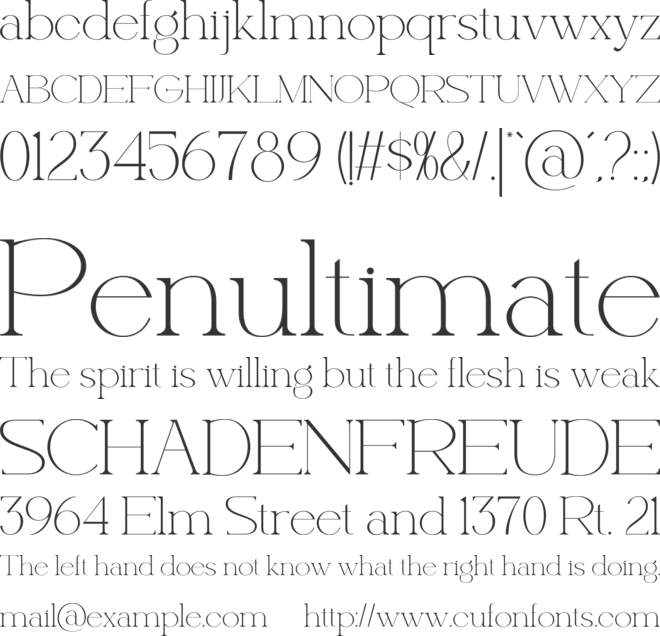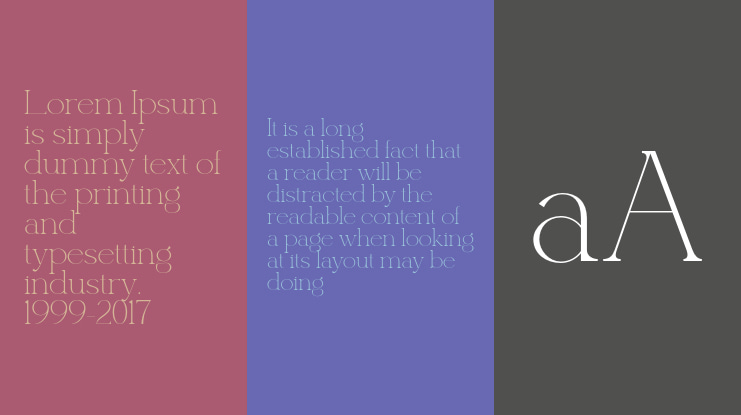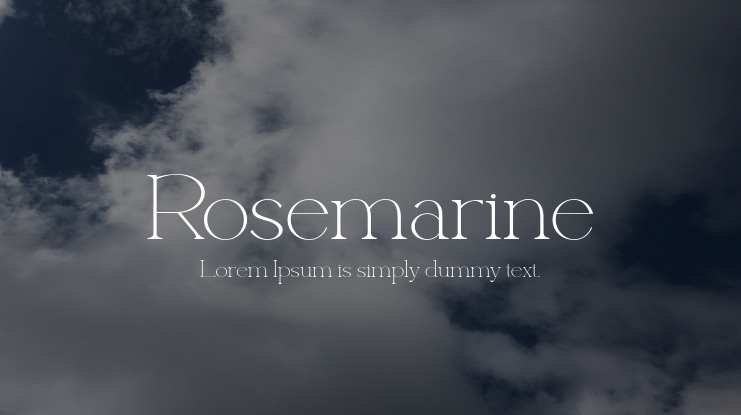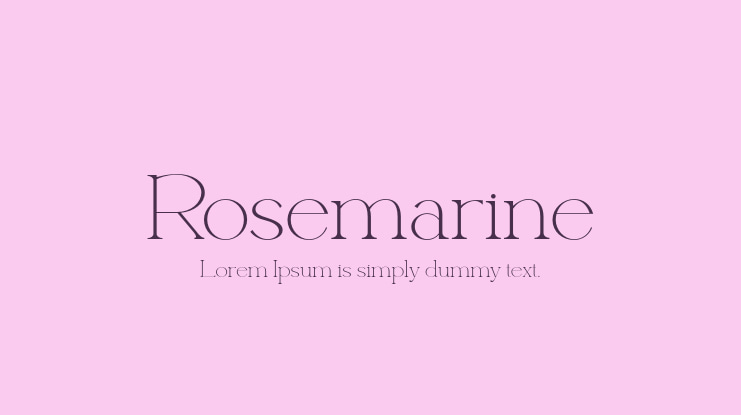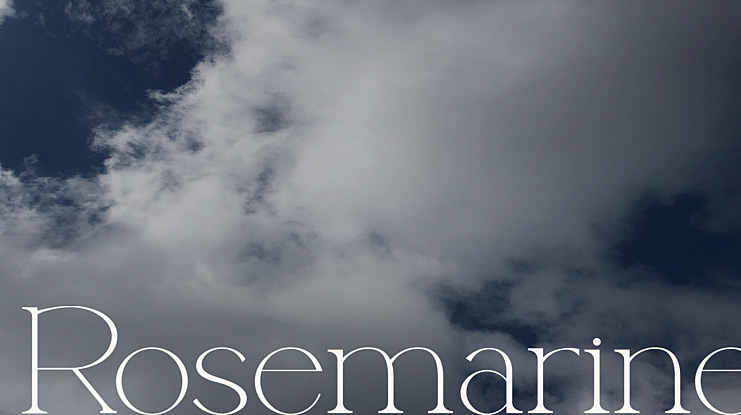
Rosemarine Font
Rosemarine is an elegant and clean serif font. Whatever the topic, this font will be a wonderful asset to your font library, as it has the potential to enhance any creation.